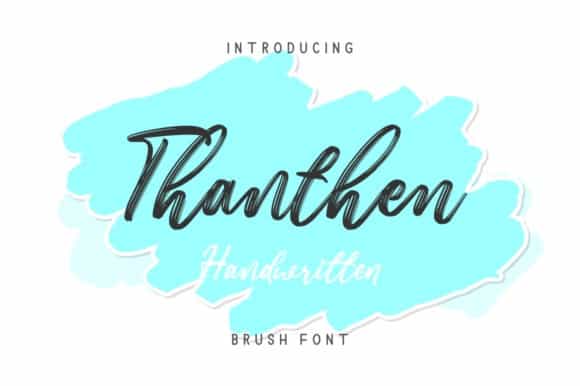
Thanthen Font is a very attractive hand brush typeface. It is breathtaking and magical but at the same time it is very modern. This flexible script font can be used for many things from greeting cards to headlines and is totally sure to bring a romantic touch to your next project.